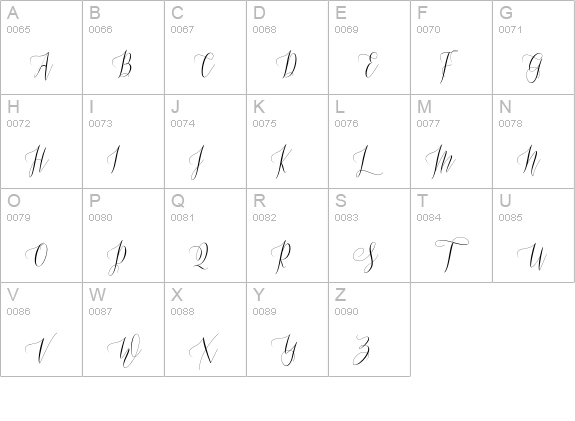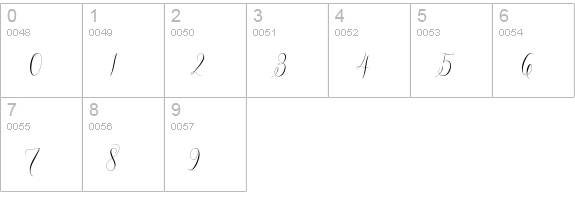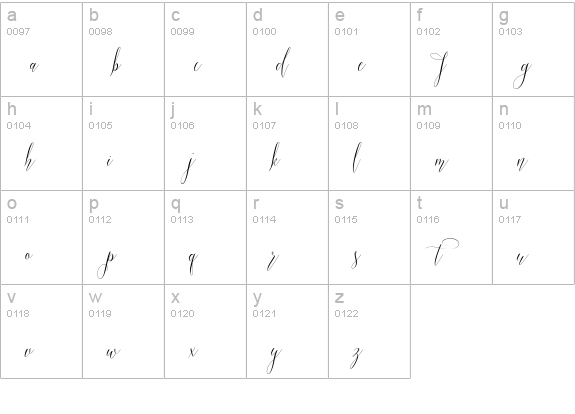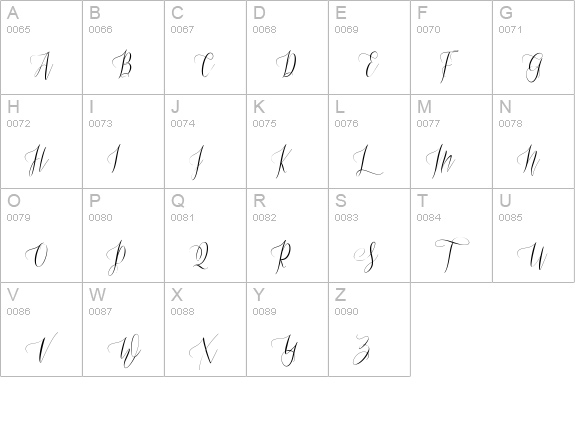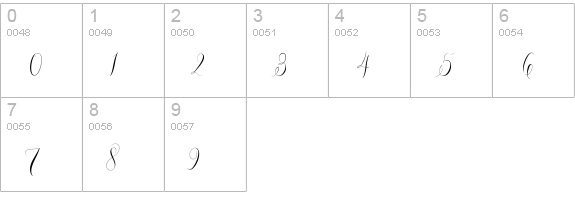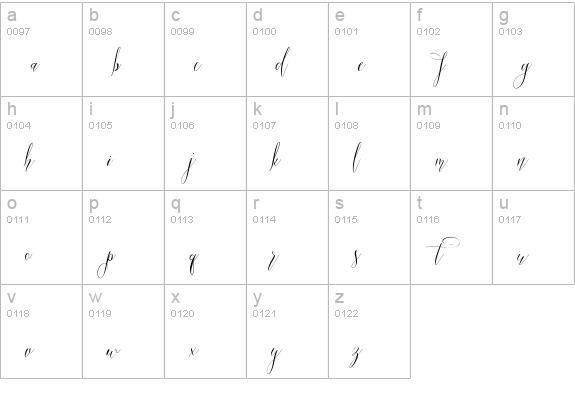
Mastura script Font Details
Mastura script font is a beautiful and elegant typeface that exudes sophistication and charm. With its delicate curves and graceful strokes, this font is perfect for adding a touch of luxury to your designs. The flowing script style of Mastura brings a sense of warmth and personality to any project. What makes Mastura even more appealing is that it is available for free download at FontsMarket.com. This means that you can easily access this stunning font and use it in your personal and commercial projects without any cost. Whether you're designing wedding invitations, branding materials, or social media graphics, Mastura script font is sure to elevate your creations and leave a lasting impression. Download Mastura today and add a touch of elegance to your design arsenal.